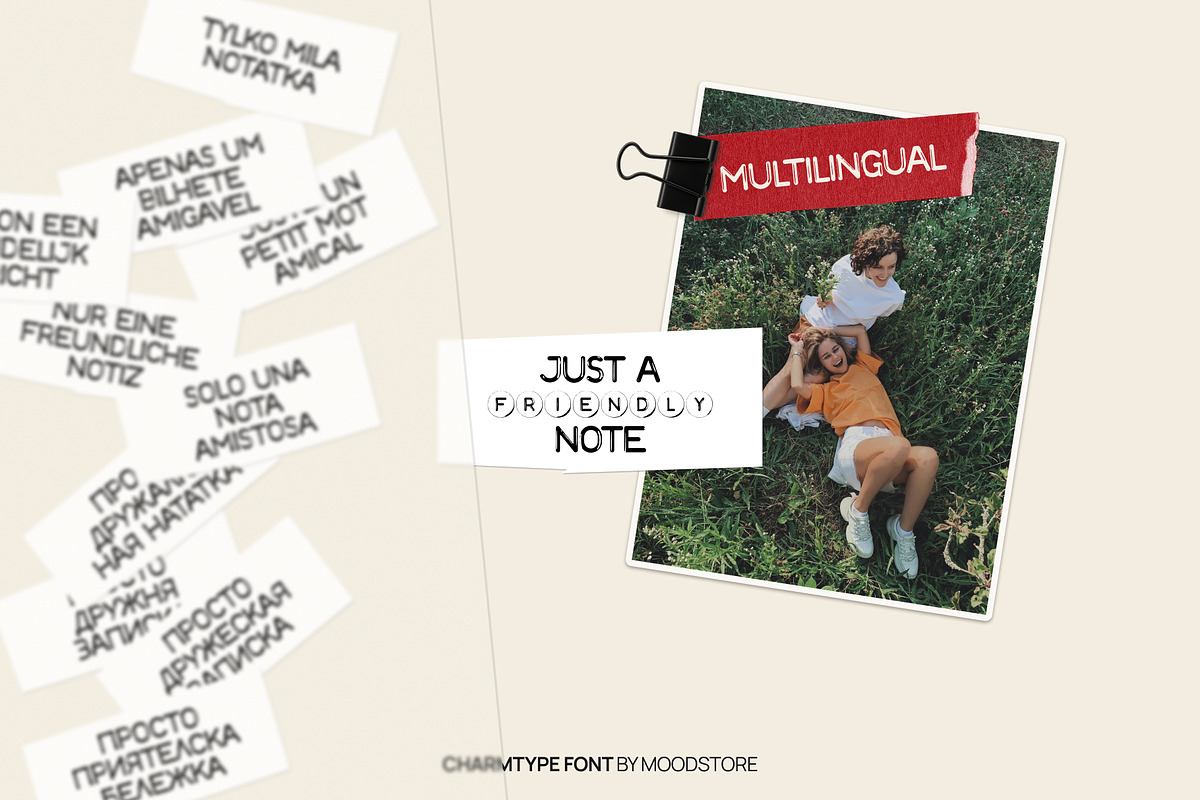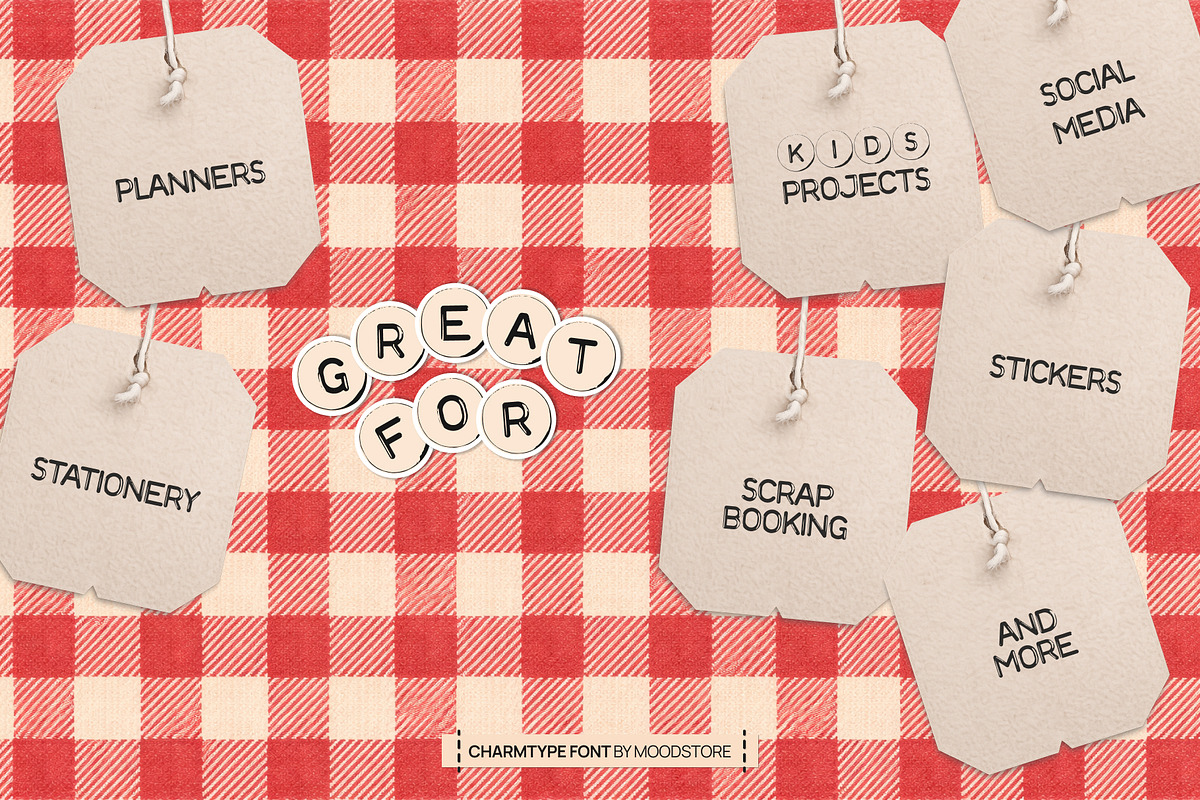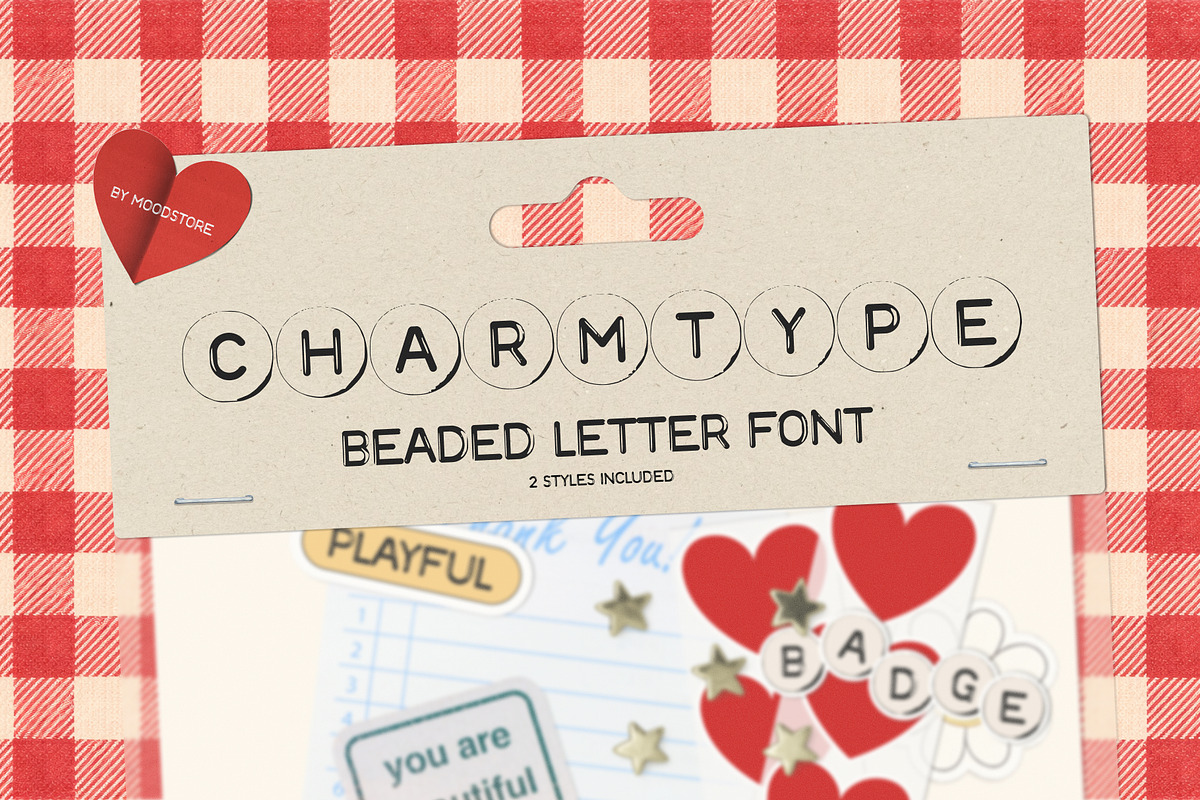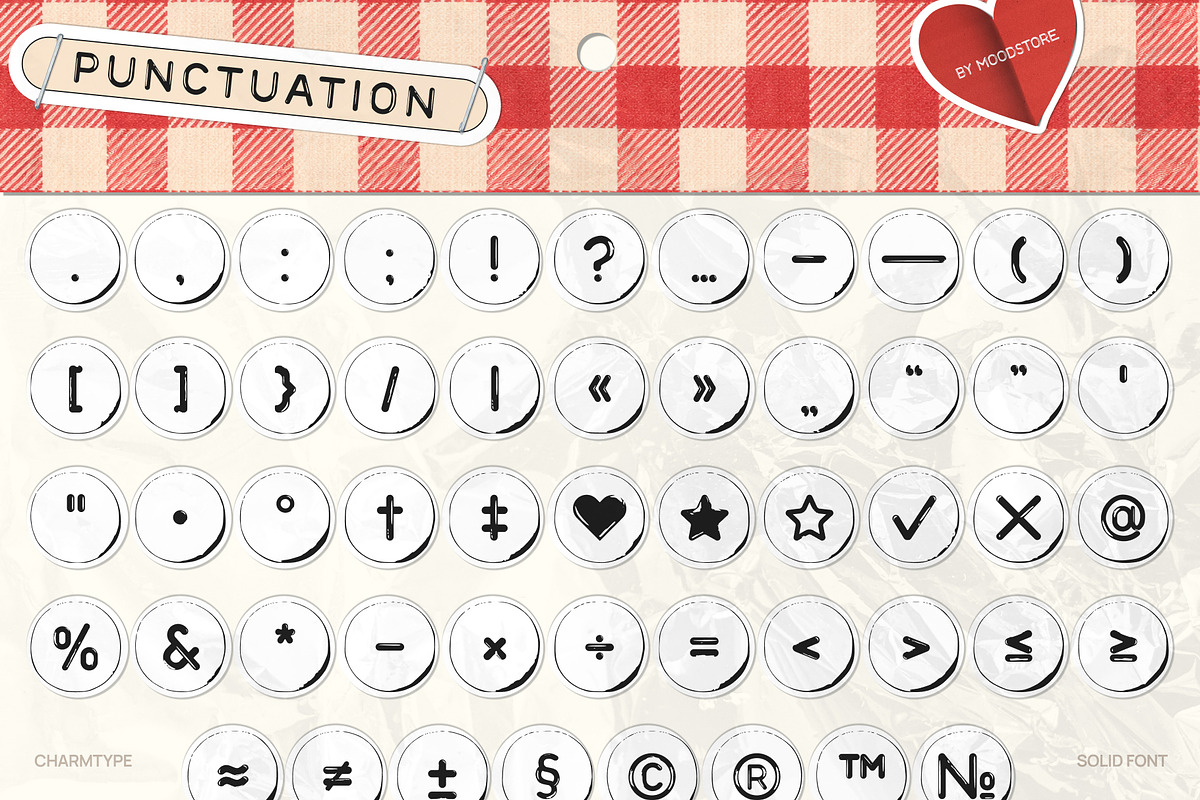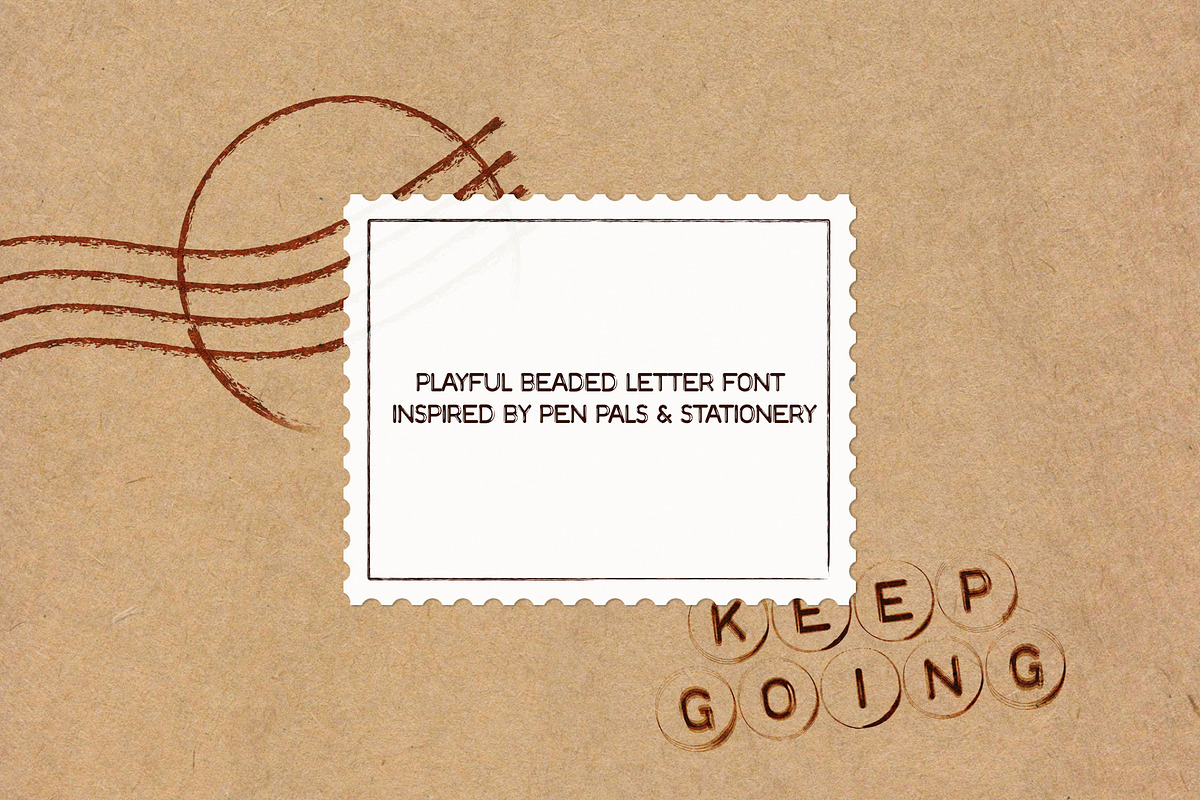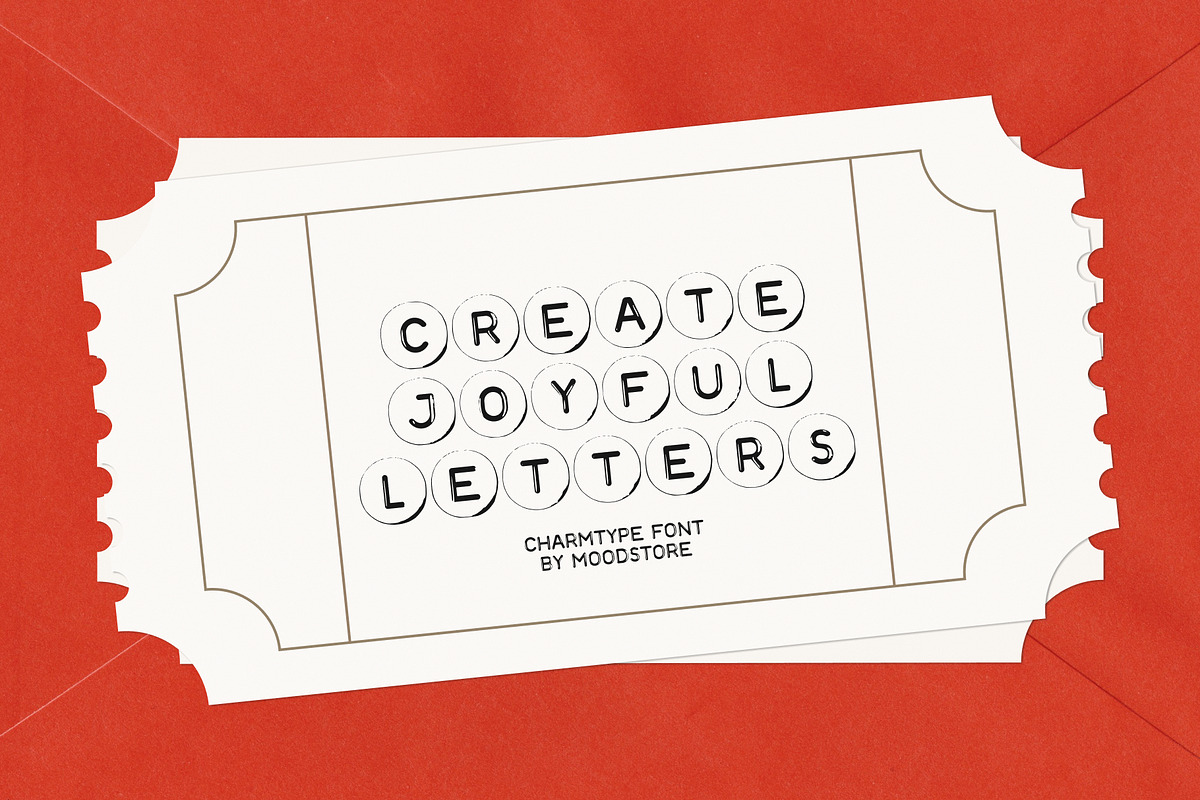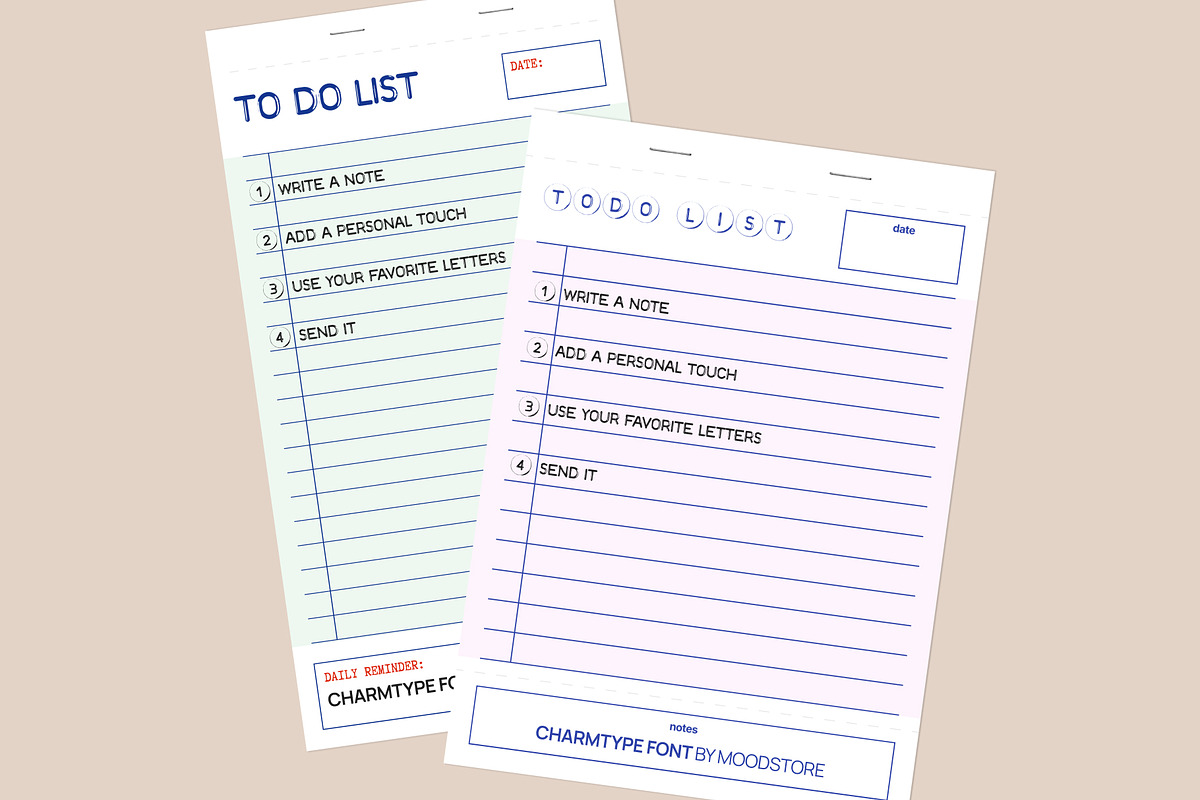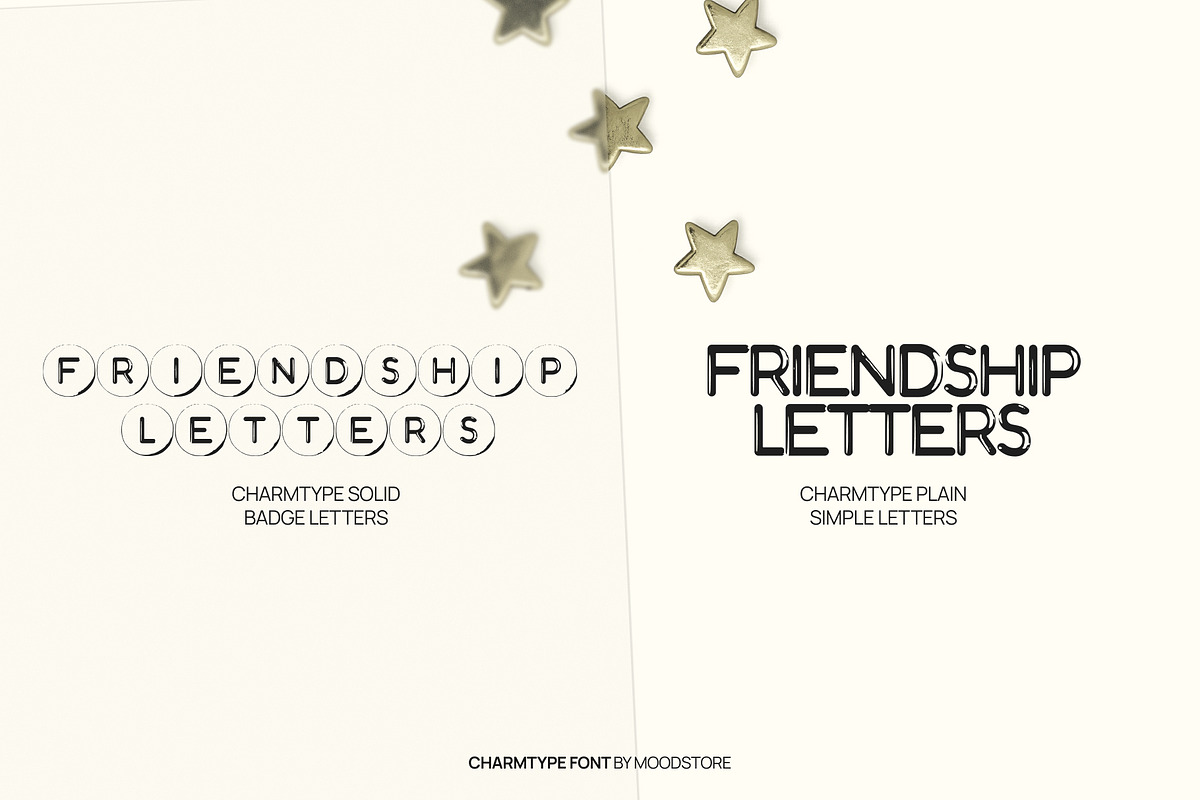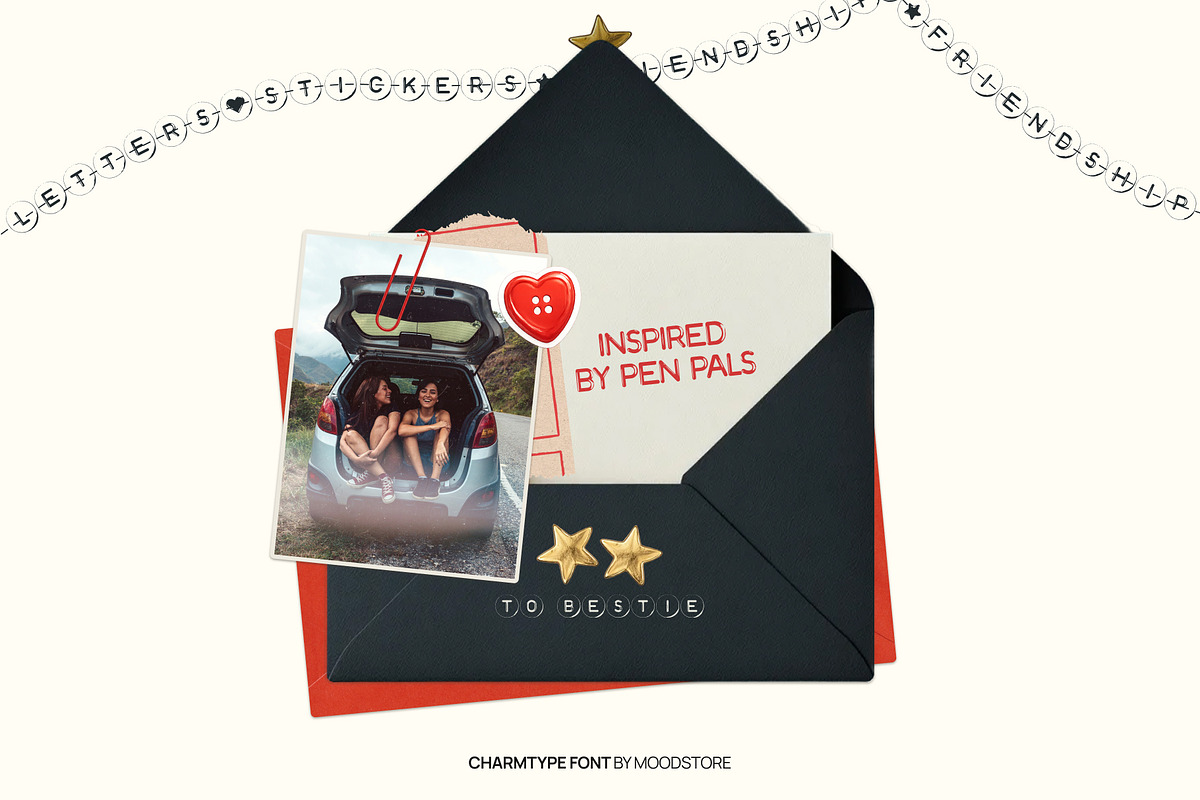
Charmtype Beaded Letter Font
Charmtype is a playful beaded letter font inspired by pen pals, friendship bracelets, stickers, and handmade stationery. Each letter feels like a small collectible bead or badge. Charmtype has a handmade, slightly rough texture, designed to feel warm, personal, and human. Just like real letters, notes, and crafts made by hand.
Two styles included:
- Solid letters placed inside rounded bead / badge outlines (no shape fill)
- Plain simple letters without background shapes Both styles are designed to work beautifully together.
- planners & journals
- kids projects
- stickers & labels
- stationery & pen pal letters
- scrapbooking
- social media graphics
- creative DIY projects
- and more.
Multilingual friendly Charmtype includes uppercase letters, numbers, punctuation, and multilingual support, making it suitable for international projects and creative lettering across different languages.
Charmtype is made for friendly notes, joyful messages, and creative projects that feel personal.